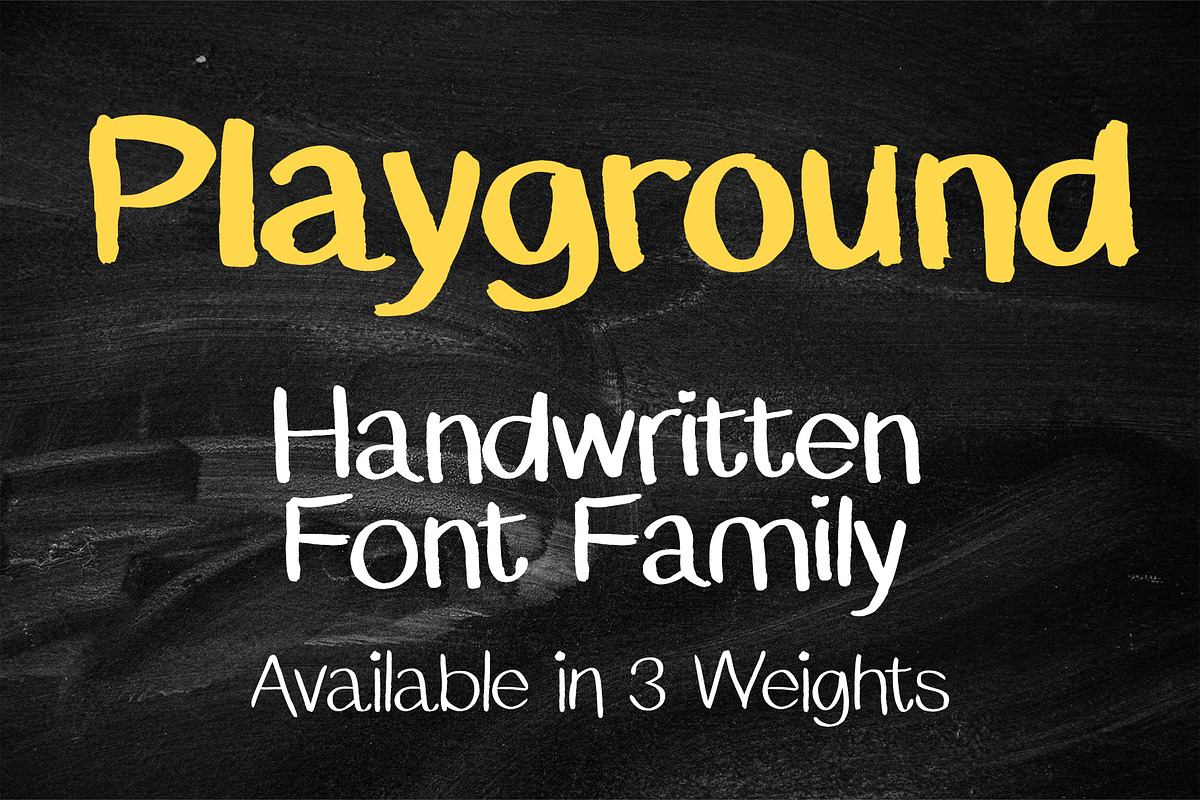
You must purchase this font for commercial use. However, you can download 'Playground' Handwritten School Font Free Download for testing purposes. Playground is a fun and casual handwritten font designed to evoke the feeling of a playful school environment. With its clean and simple letterforms, this font is perfect for children's designs, educational materials, school-themed branding, posters, and social media content.
The playful, easy-to-read style of Playground makes it ideal for projects aimed at kids or young audiences, giving your designs a friendly and approachable feel. Whether you're creating school-themed invitations, educational content, or a youthful brand, this font brings a sense of fun and creativity to your typography.